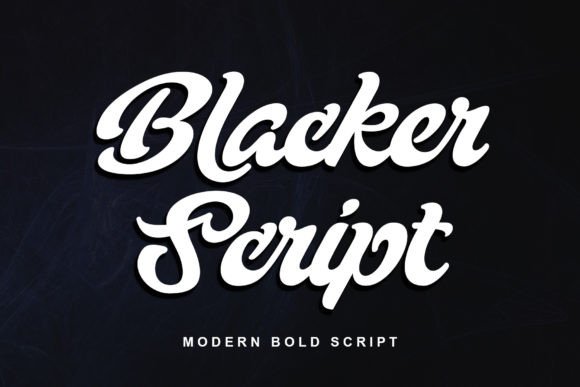
Unleash the captivating spirit of Blacker Script Font - a modern bold script font, meticulously designed to ignite your creativity and leave a lasting impression. Experience the unique charm of this handcrafted font, where each letter dances with an effortless grace and undeniable elegance. Its casual flair exudes an organic and relatable vibe, making it perfect for adding a personal touch to your designs.
With its remarkable versatility, Blacker Script Font effortlessly adapts to any scenario. Whether you're crafting eye-catching headlines, creating stunning logos, or personalizing invitations, this font delivers exceptional results. It seamlessly blends into busy backgrounds, holding its own with unwavering clarity and distinction. As a standalone headline, it commands attention, captivating your audience with its bold and expressive character.
This remarkable font is PUA encoded, granting you effortless access to a treasure trove of glyphs and swashes. Unleash your creativity and explore endless possibilities, transforming your designs into captivating works of art. Embrace the allure of Blacker Script Font and witness the transformation it brings to your projects.
So, dive in and let the Blacker Script Font ignite your creative spark. Experience the joy of crafting designs that resonate with your audience, leaving a lasting impression that sets you apart from the ordinary. Let this font elevate your creativity and guide you on an artistic journey that knows no bounds.